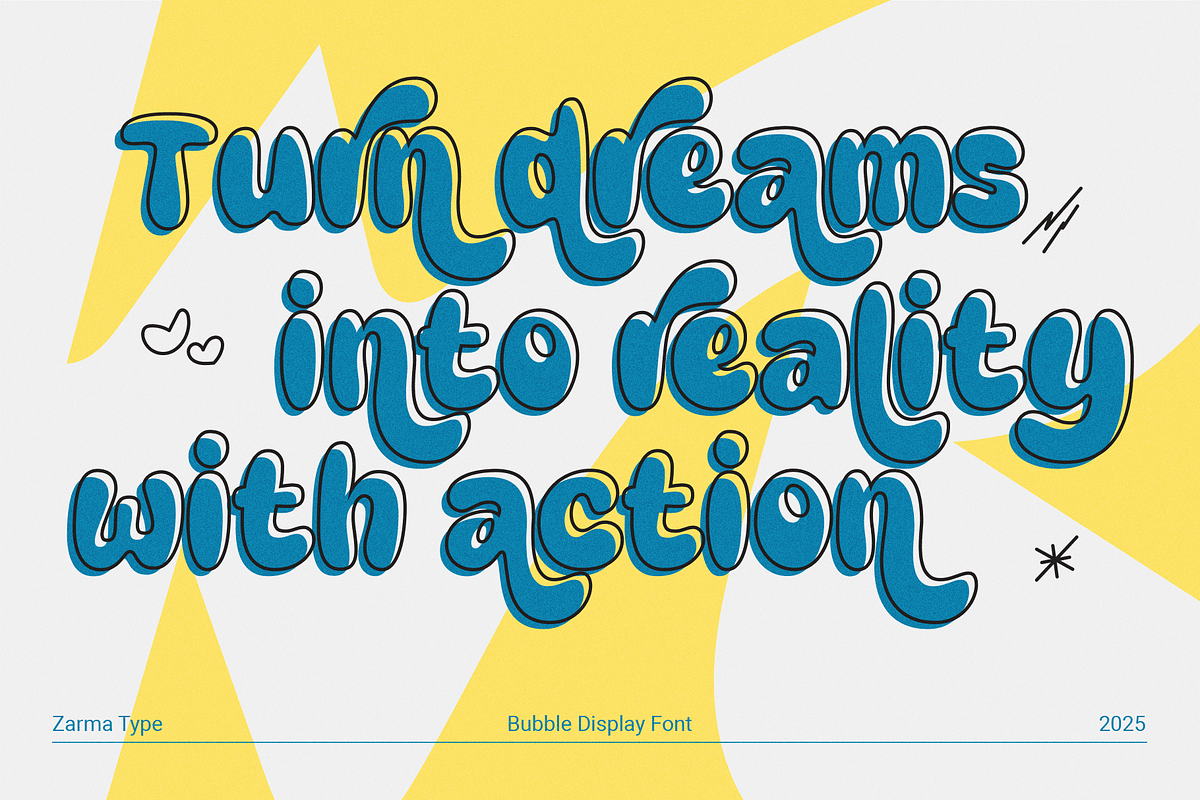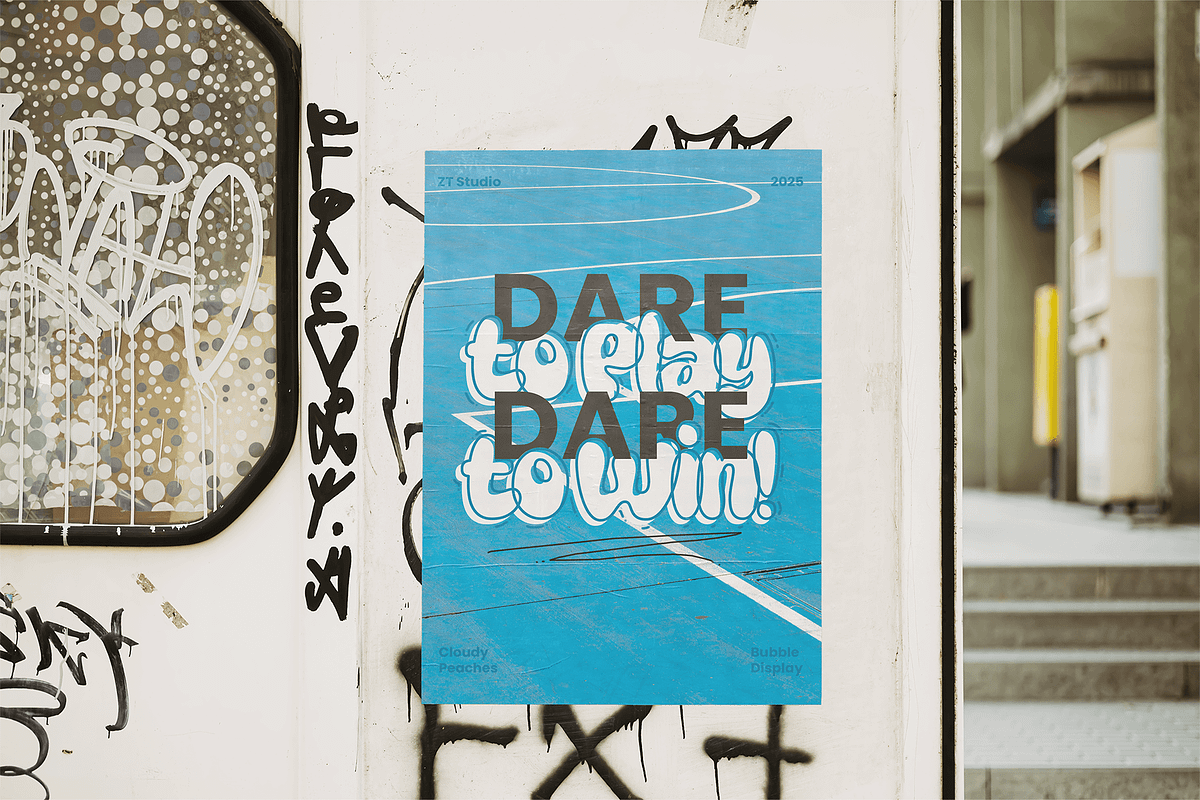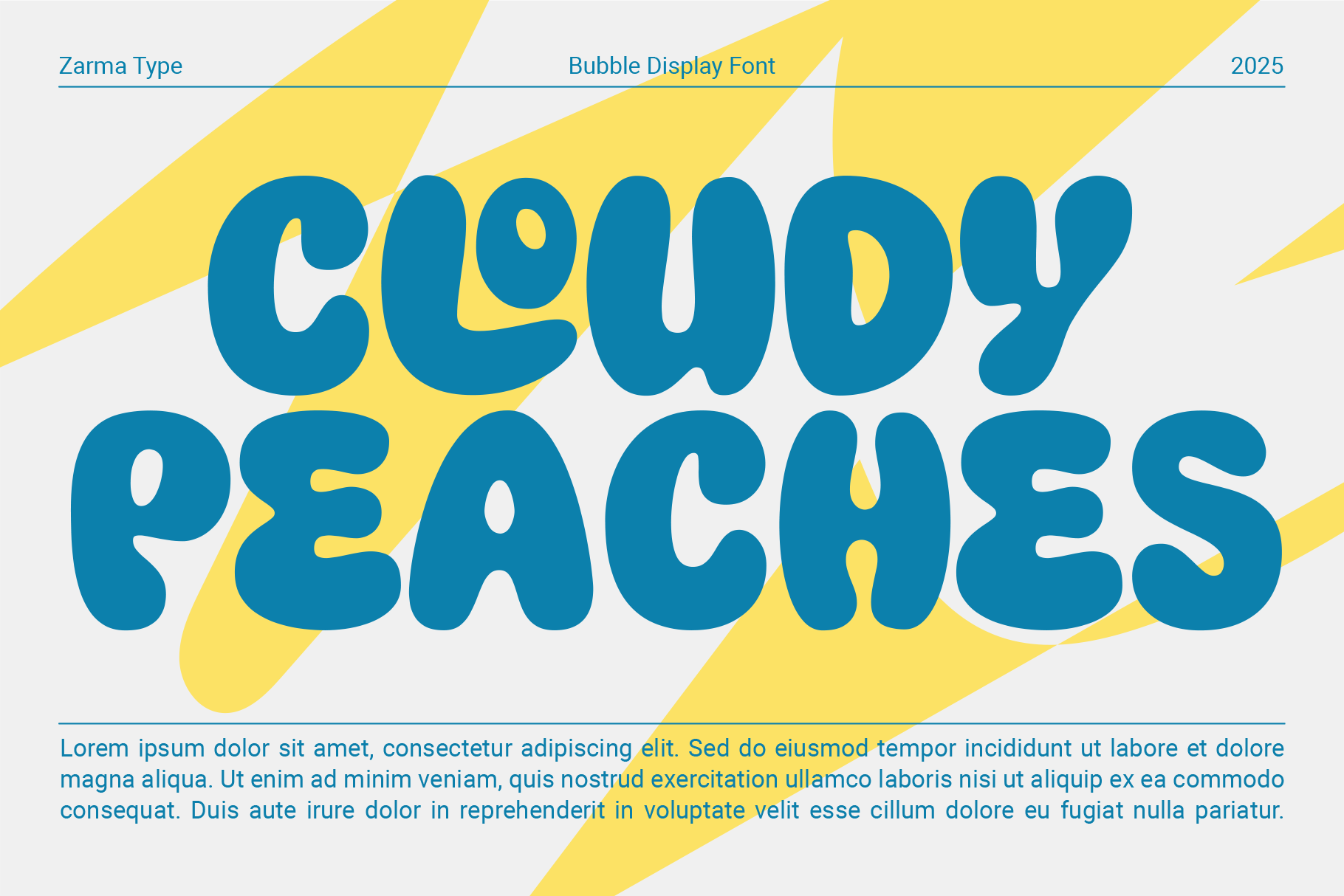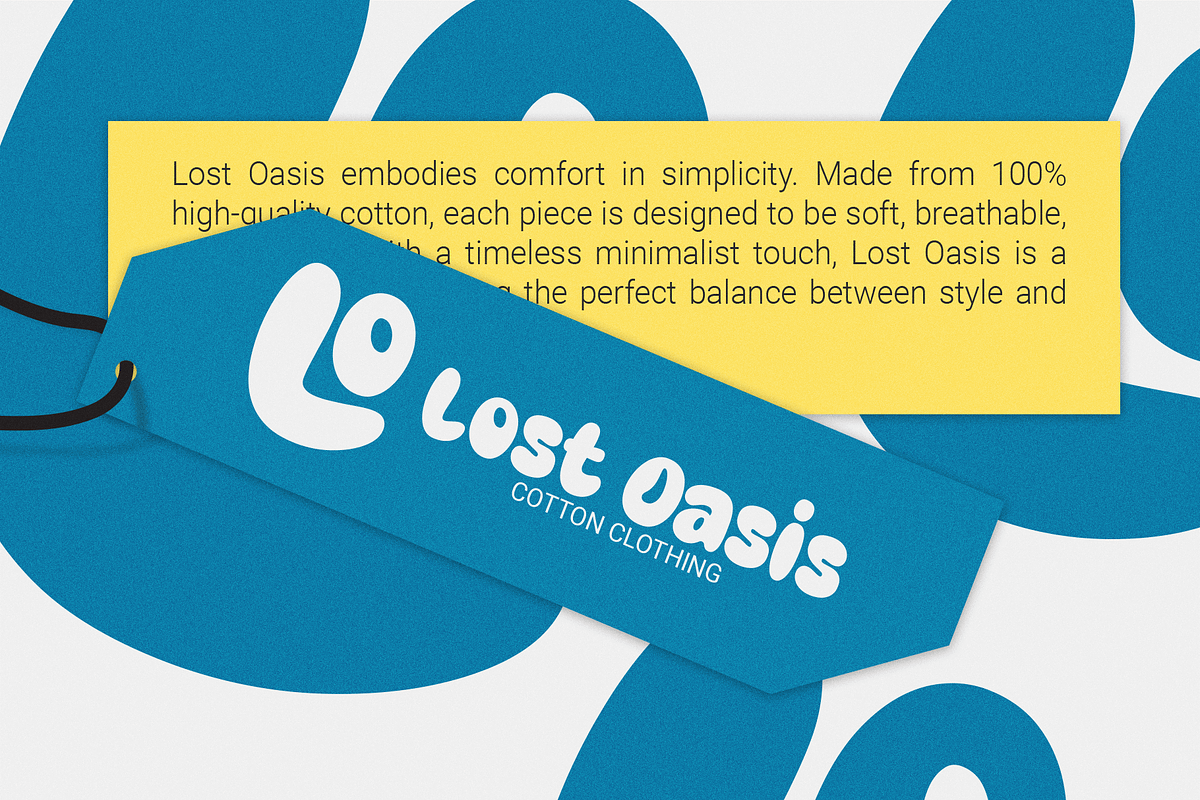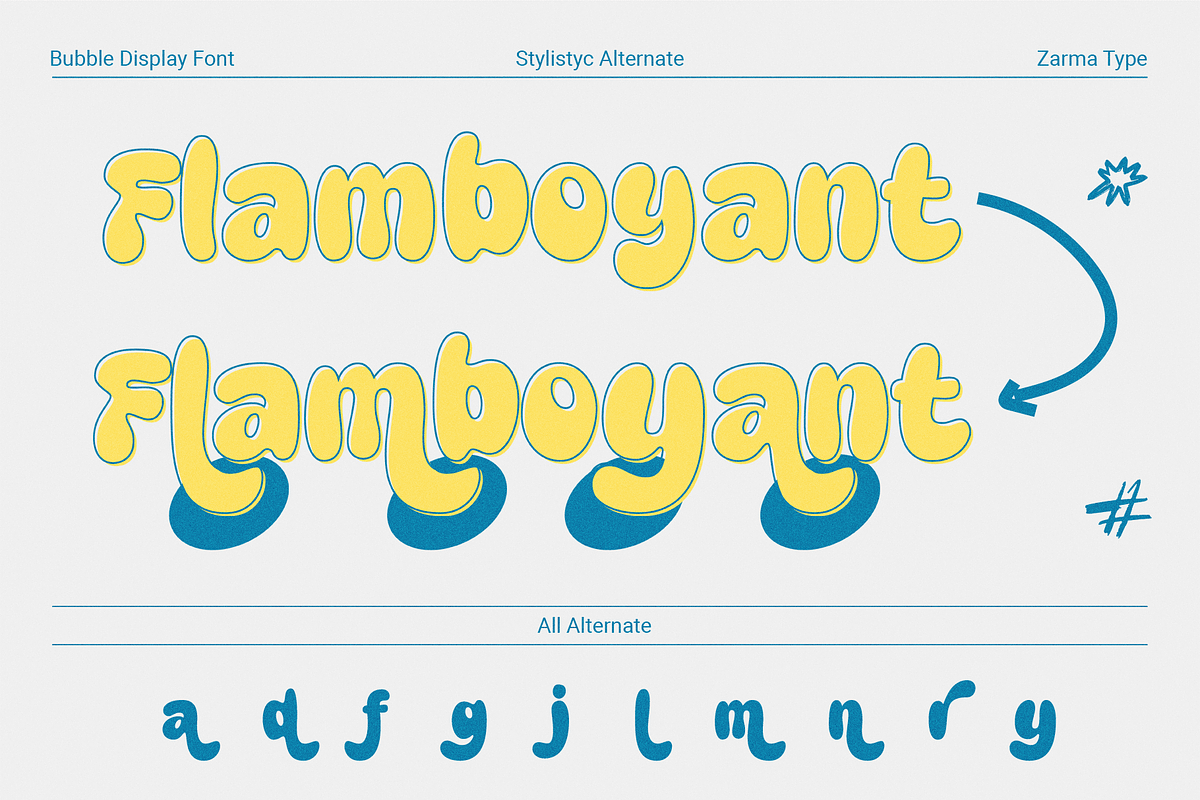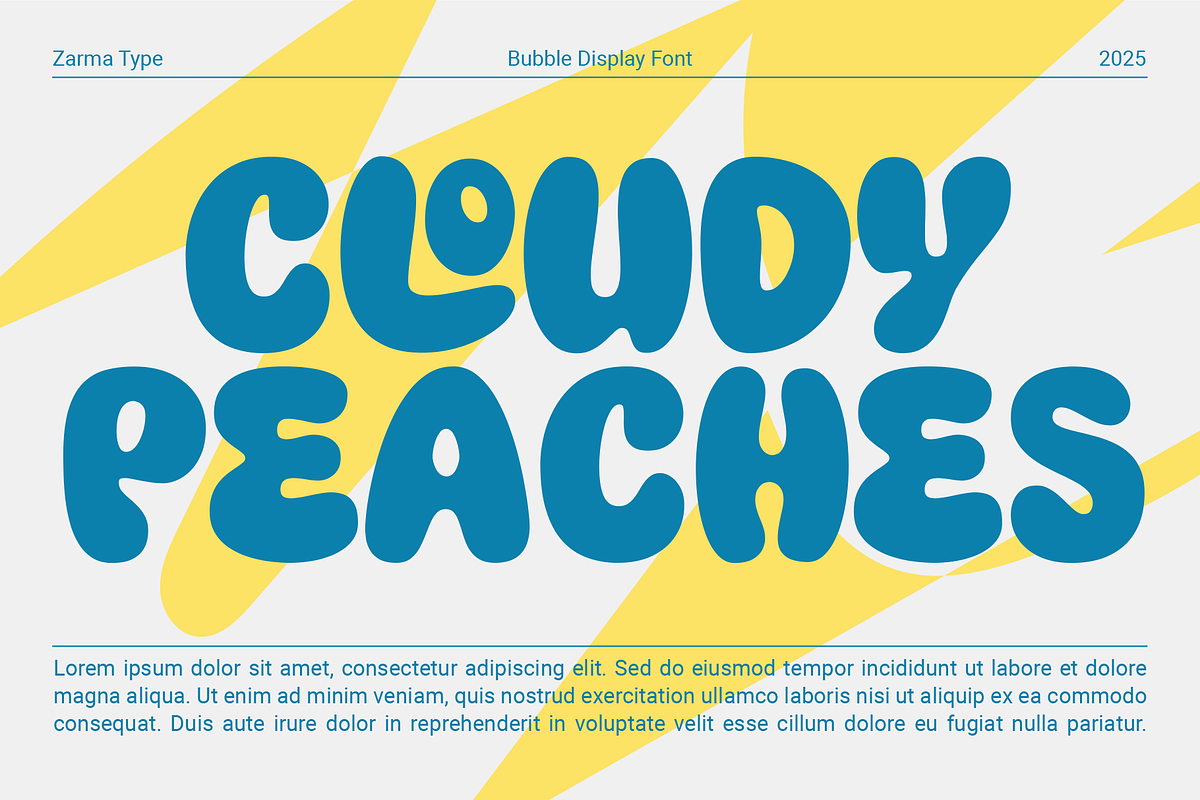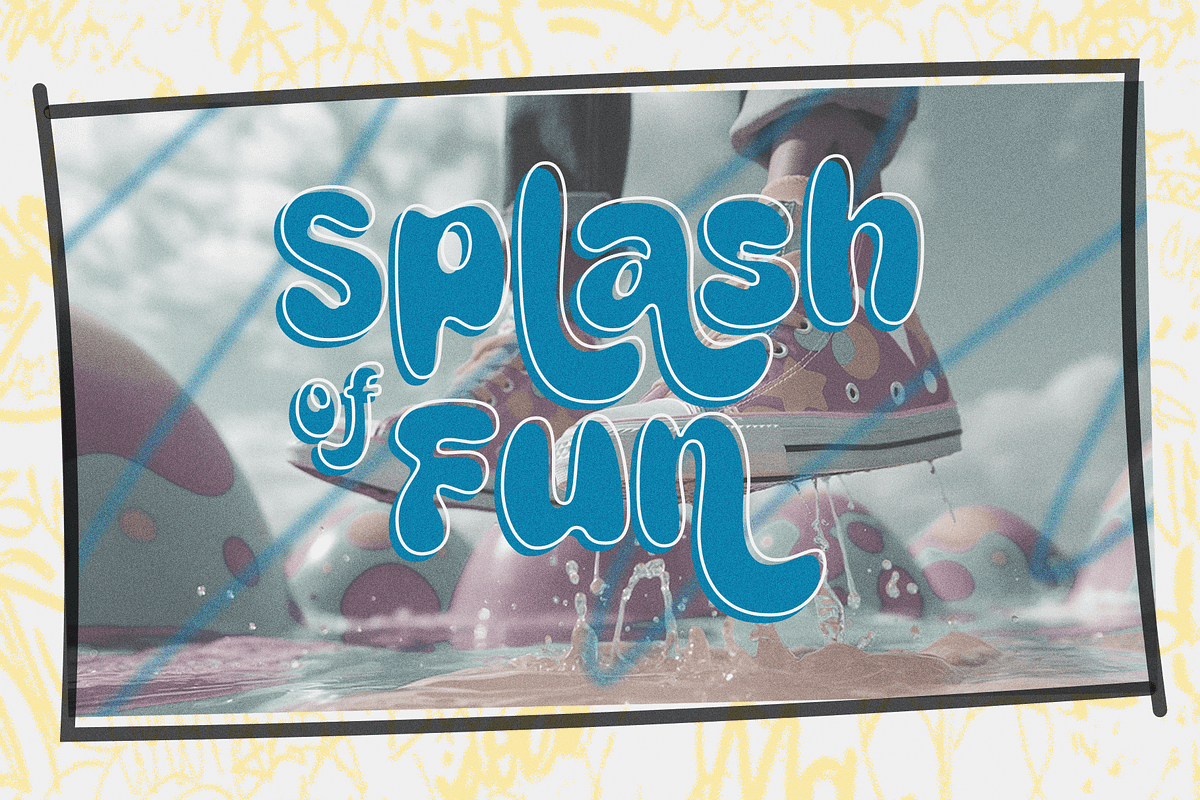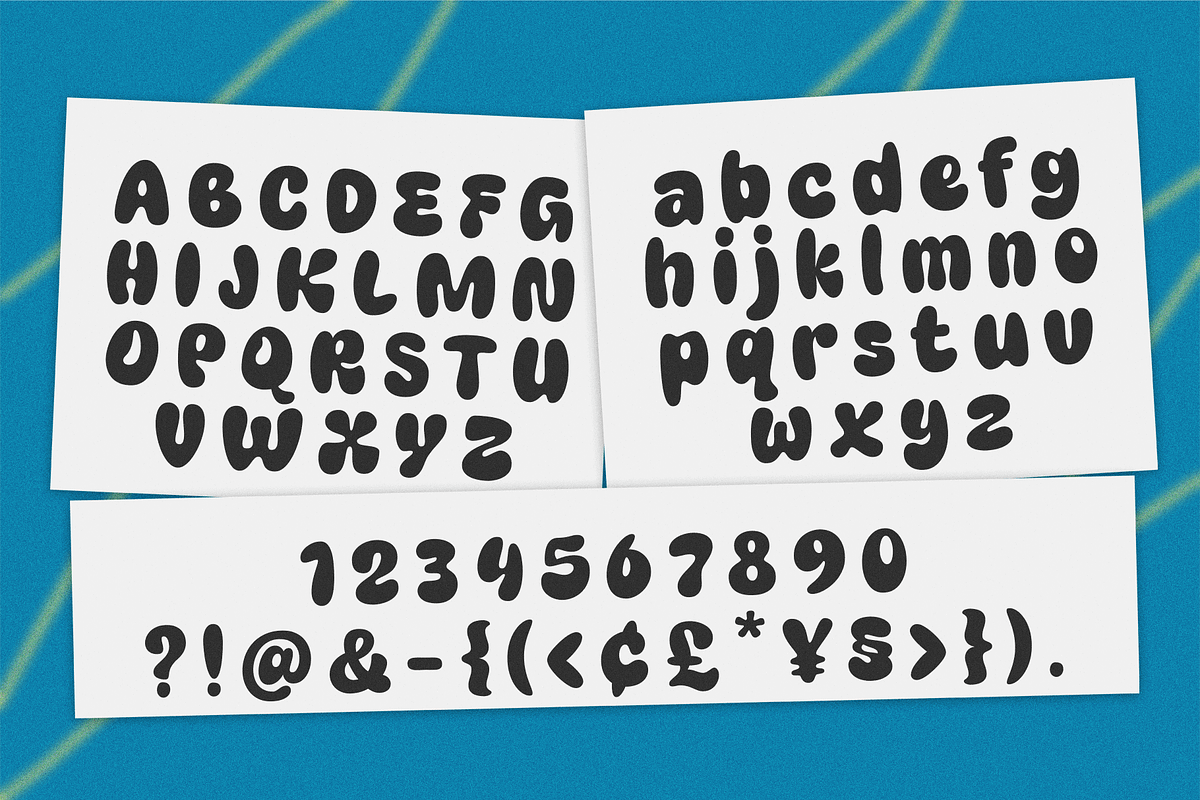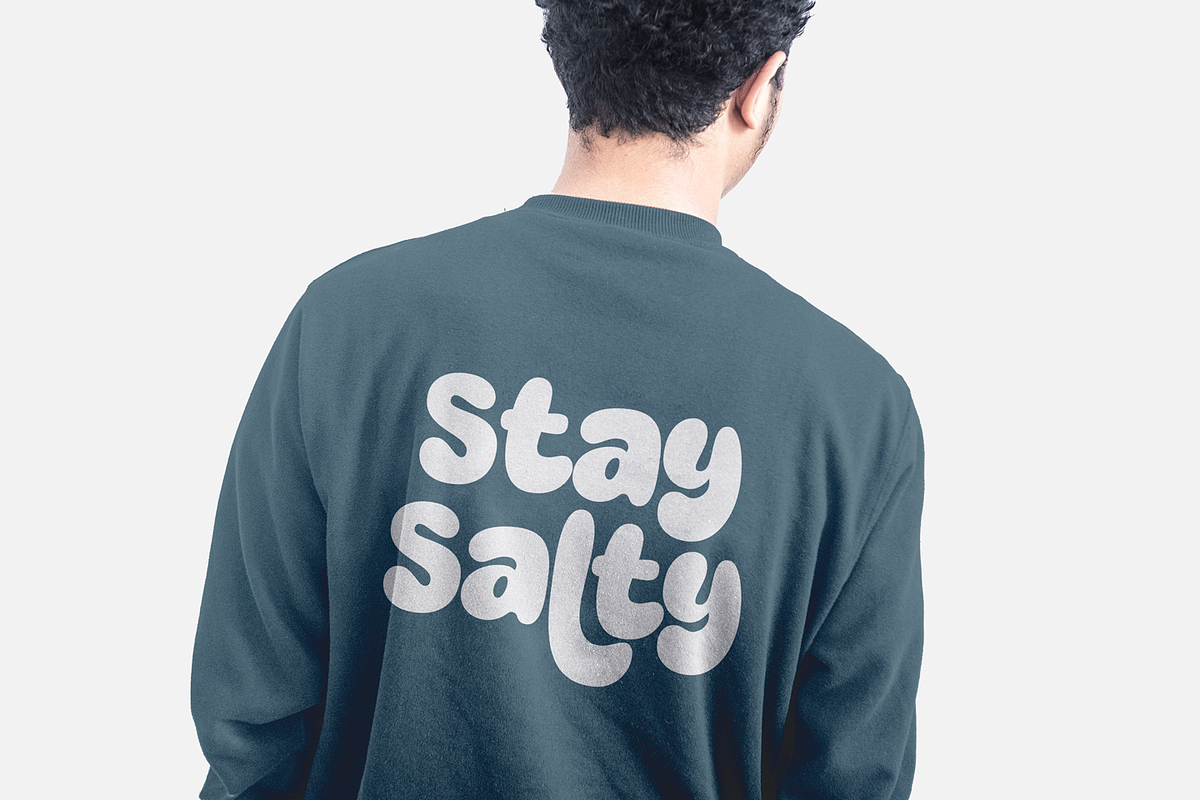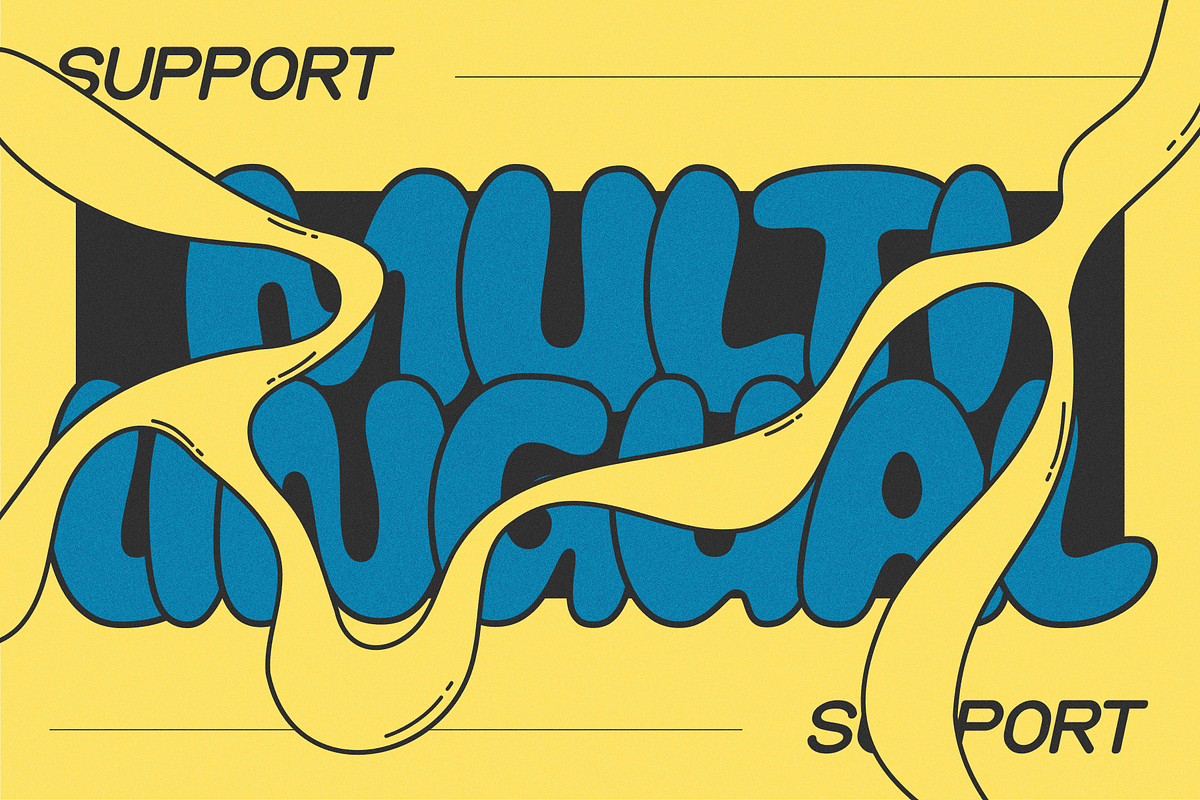
Cloudy Peaches - Bubble Font
Cloudy Peaches is a playful bubble display font that brings a fresh splash of nostalgia and whimsy to your designs. With its bouncy character forms, rounded edges, and fluid connections, this typeface embodies a perfect balance between retro psychedelic vibes and contemporary design trends. Each letter appears to float and flow with a fun, carefree energy that instantly evokes feelings of joy and creativity.
Meticulously crafted for maximum visual impact, Cloudy Peaches features organic letterforms with playful alternates that add personality to every application. Its distinctive bubbly aesthetic works beautifully across various media, from music festival promotions to youth-oriented brands, creative projects, and digital content that aims to stand out with a touch of cheerful character.
- Entertainment Branding
- Children's Products and Services
- Creative Agency Projects
- Social Media Content
- Festival and Event Marketing
- Apparel Design
- Digital Advertising
- Merchandise
- Youth-oriented Brands
- Fun Product Packaging
- Complete Uppercase and Lowercase Character Set
- Complete Numbers and Punctuation
- Standard & Discretionary Ligatures
Add a splash of fun and a touch of nostalgic psychedelia to your projects with Cloudy Peaches Font. This versatile display typeface transforms ordinary text into extraordinary visual statements, making it the perfect choice for designers looking to infuse their work with personality, movement, and joyful expression.